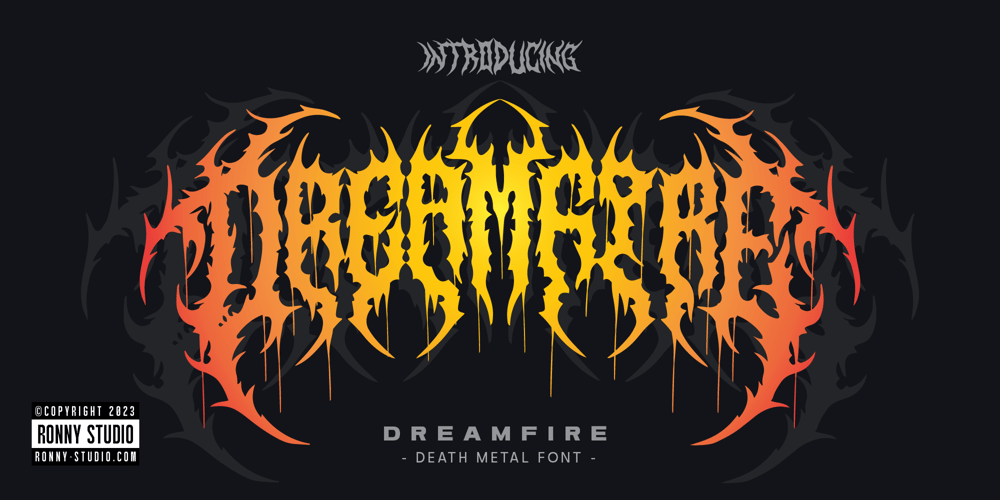
Dreamfire
Dreamfire font
Dreamfire Font Family was designed by Rony Rizki Jaya and published by Ronny Studio. Dreamfire contains 2 styles and family package options. Dreamfire Font is a cool alternative for you to easily create a logo for your Underground band or whatever. Using alternate front and ending letters brings the font to life, It comes with a basic character set and a small group of symbols and signs often used in the extreme music sector – the classics of Death- and Blackmetal like pentagram drops, roots, spikes and more.How to easily create Death metal & Black Metal logo from font : https://youtu.be/NBYIjcMmEb4Features :- All Caps- numbers & punctuation- Alternate- Symbol Ornament- PUA encodedPlease contact us if you have any questions. Enjoy Crafting and thanks for supporting us! :)Thank you